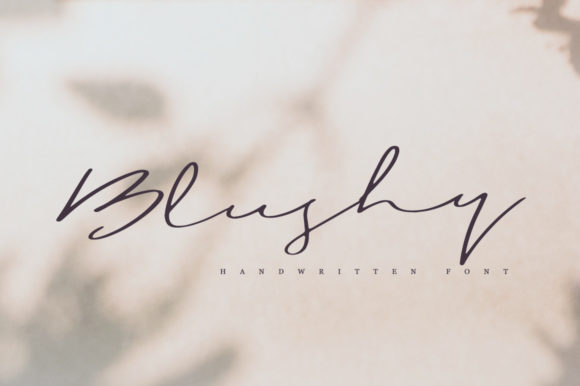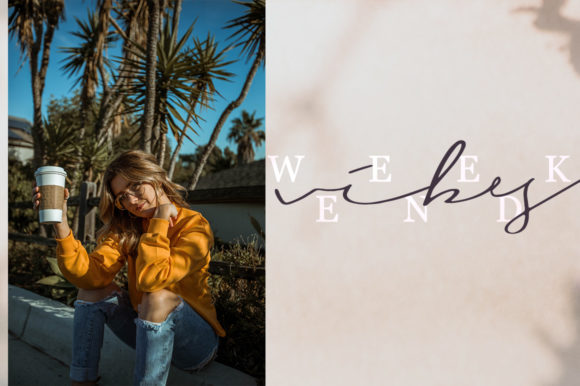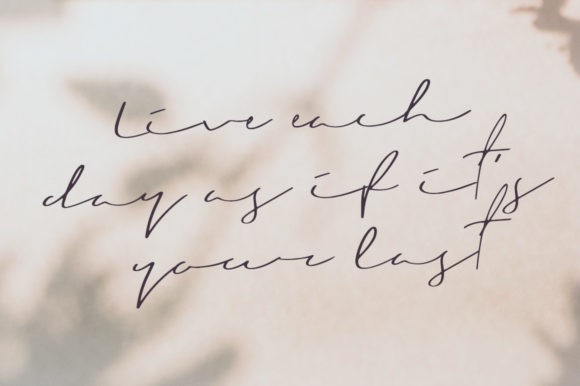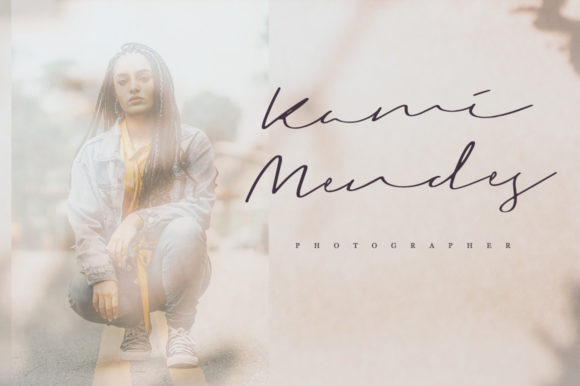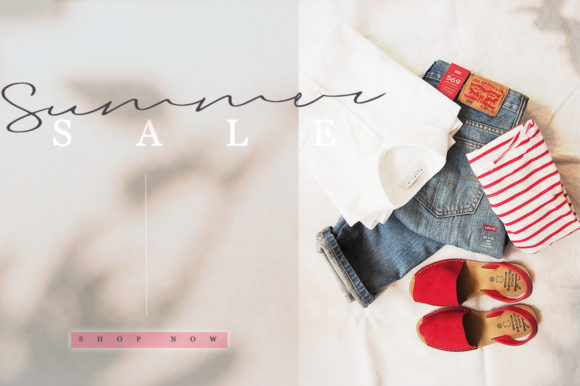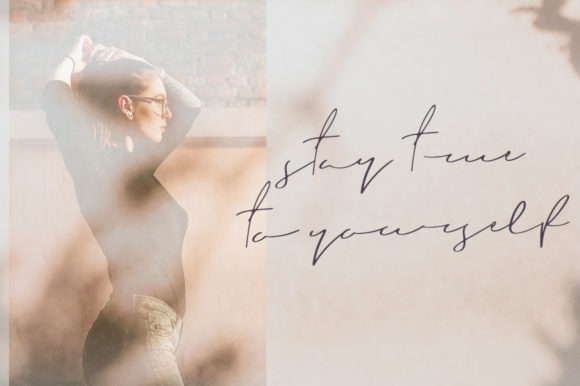
Blushy Font
About Blushy Font
Light and breezy like a beautiful spring day, Blushy is a one-of-a-kind handwritten font with a lot of authentic charm. It will effortlessly elevate any design project.